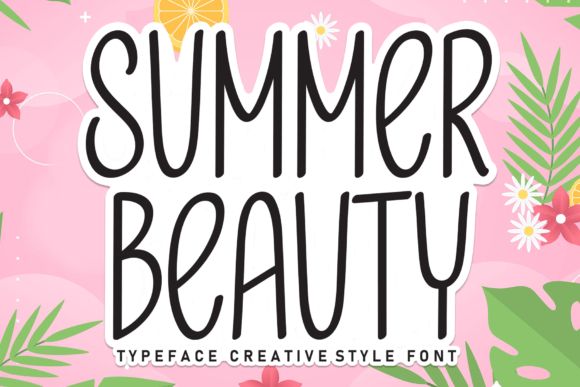
Journey into the realm of enchanting script fonts with Summer Beauty, a creation by the talented William Jhordy. This exquisite font family exudes a captivating charm, reminiscent of handwritten notes penned with love and care. Its graceful curves and playful strokes evoke a sense of warmth and nostalgia, inviting you to weave tales of joy and heartfelt emotions into your digital creations.
Imagine the sheer delight of your audience as they encounter your designs adorned with Summer Beauty. Its whimsical nature lends itself perfectly to wedding invitations, greeting cards, and any project seeking a touch of delightful whimsy. Its versatility extends far beyond the realm of stationary, seamlessly adapting to social media posts, logos, posters, and branding materials.
Summer Beauty possesses an innate ability to transform ordinary words into captivating works of art. Its expressive nature adds depth and dimension to your messages, captivating your audience and leaving a lasting impression. Engage their senses with designs that resonate with their emotions, forging connections that transcend mere words.
With Summer Beauty as your creative companion, you unlock a treasure trove of possibilities. Let your imagination run wild as you explore endless combinations of colors and styles. Its friendly demeanor harmonizes effortlessly with other elements, allowing you to craft cohesive and visually stunning designs that leave a lasting impact.
Make a statement with Summer Beauty, a font that embodies the essence of heartfelt communication. Its unique charm will elevate your designs, transforming them into expressions of love, joy, and pure delight. Embrace the beauty of handwritten elegance and let your creativity flourish with Summer Beauty. Dive into the world of Summer Beauty today and unlock a font that speaks to the heart.